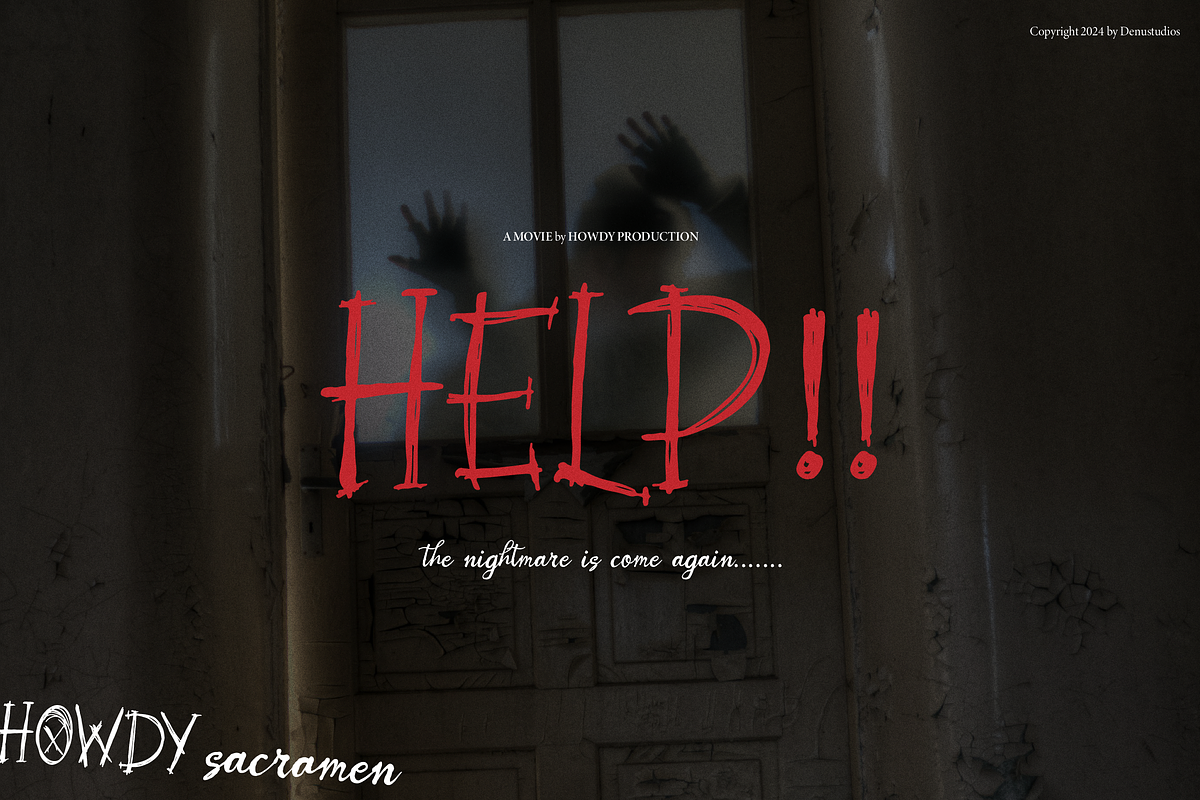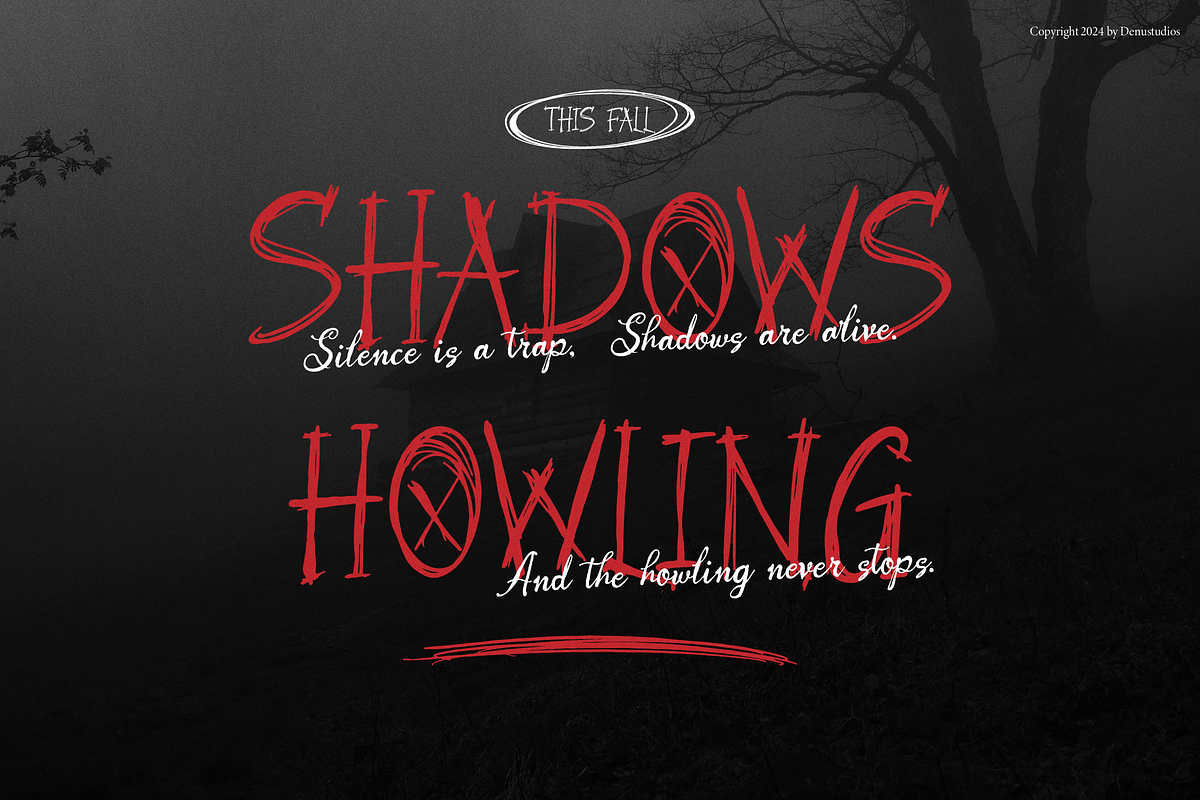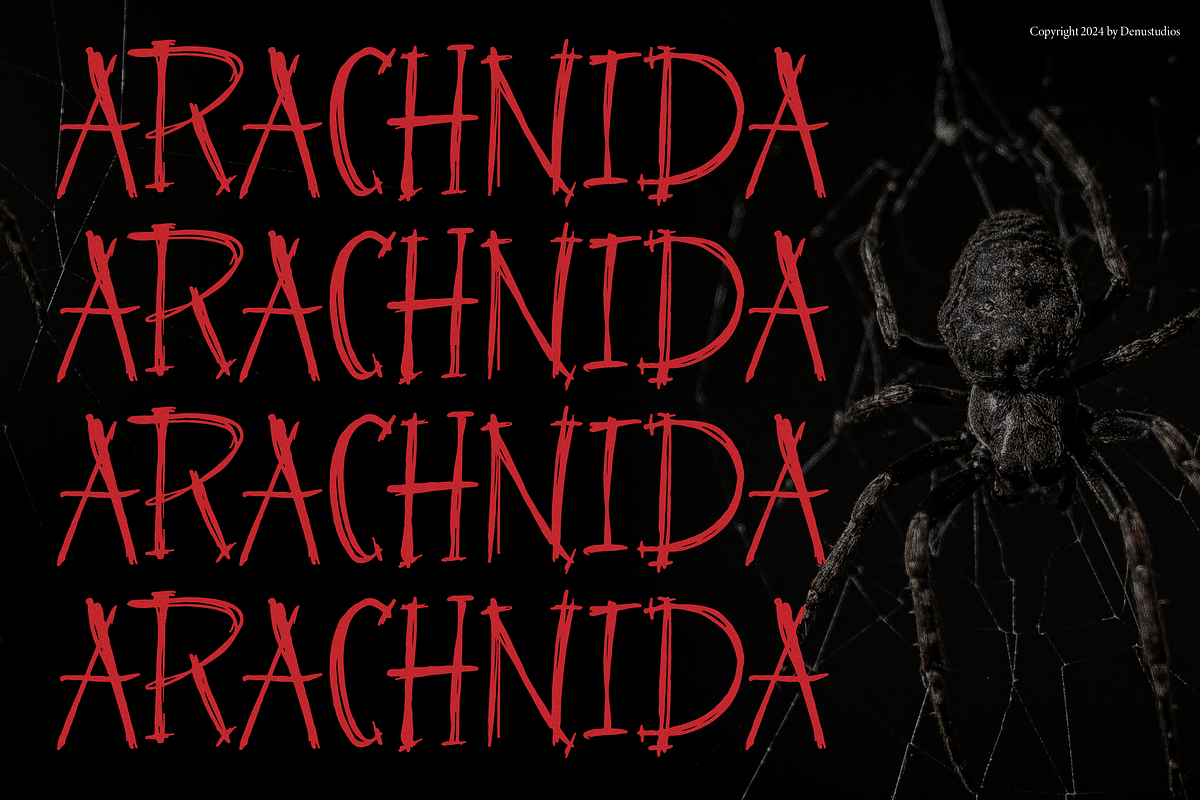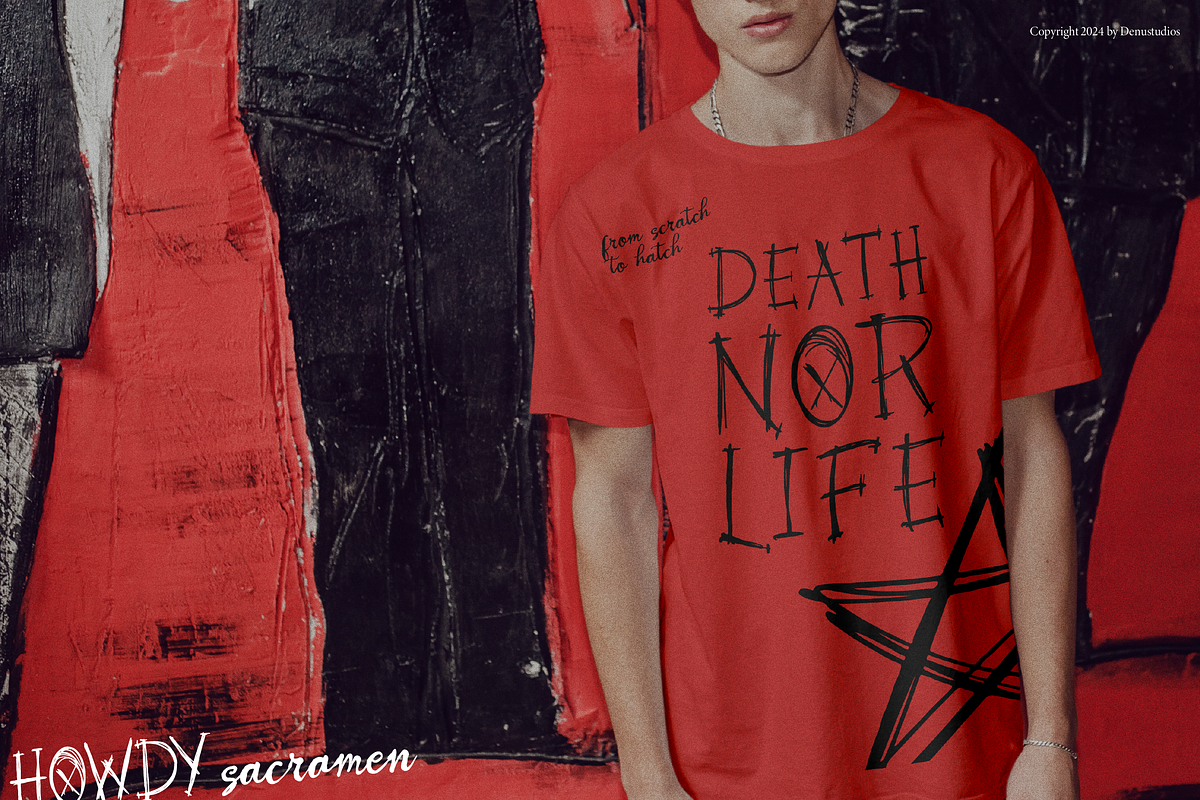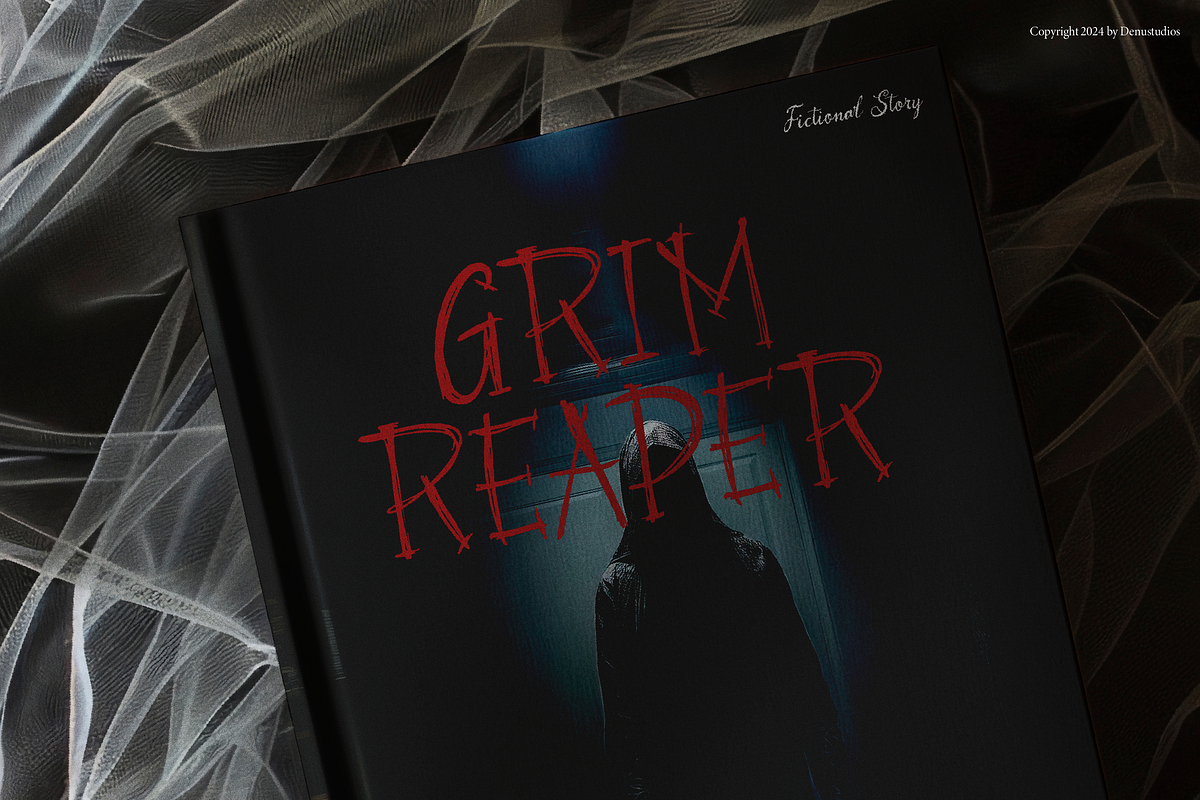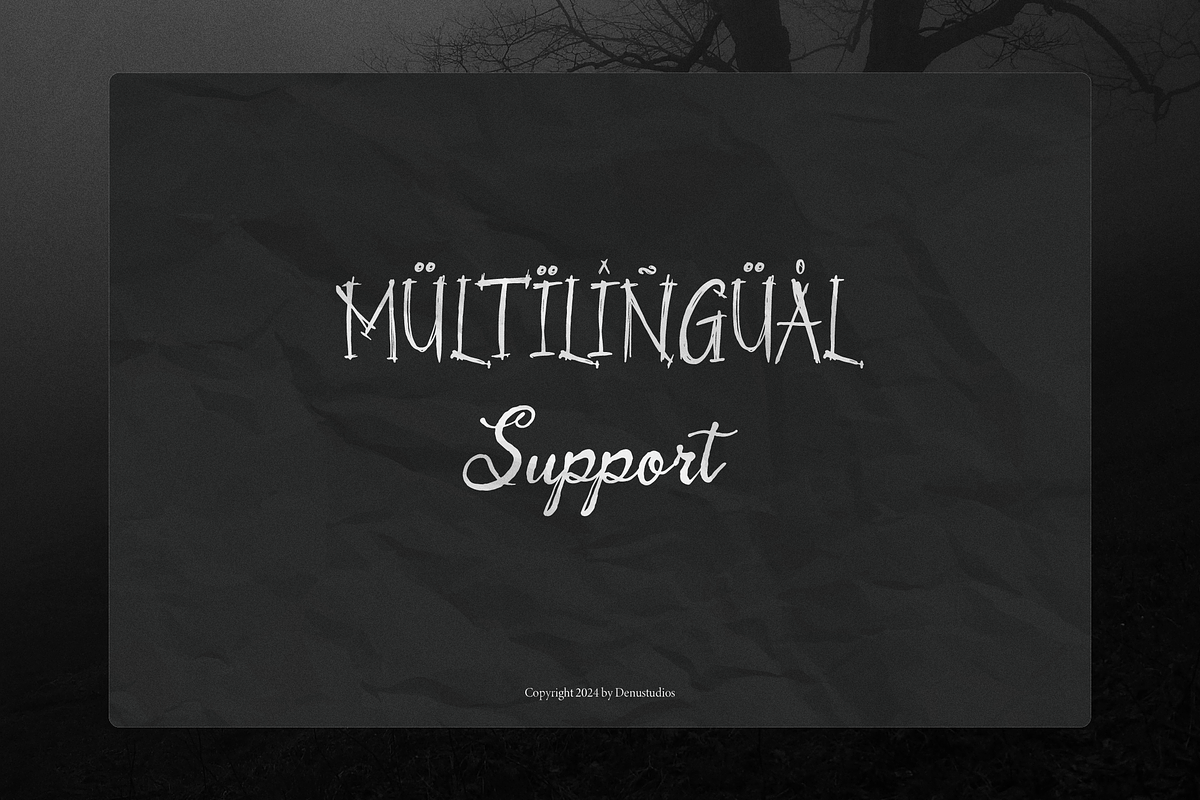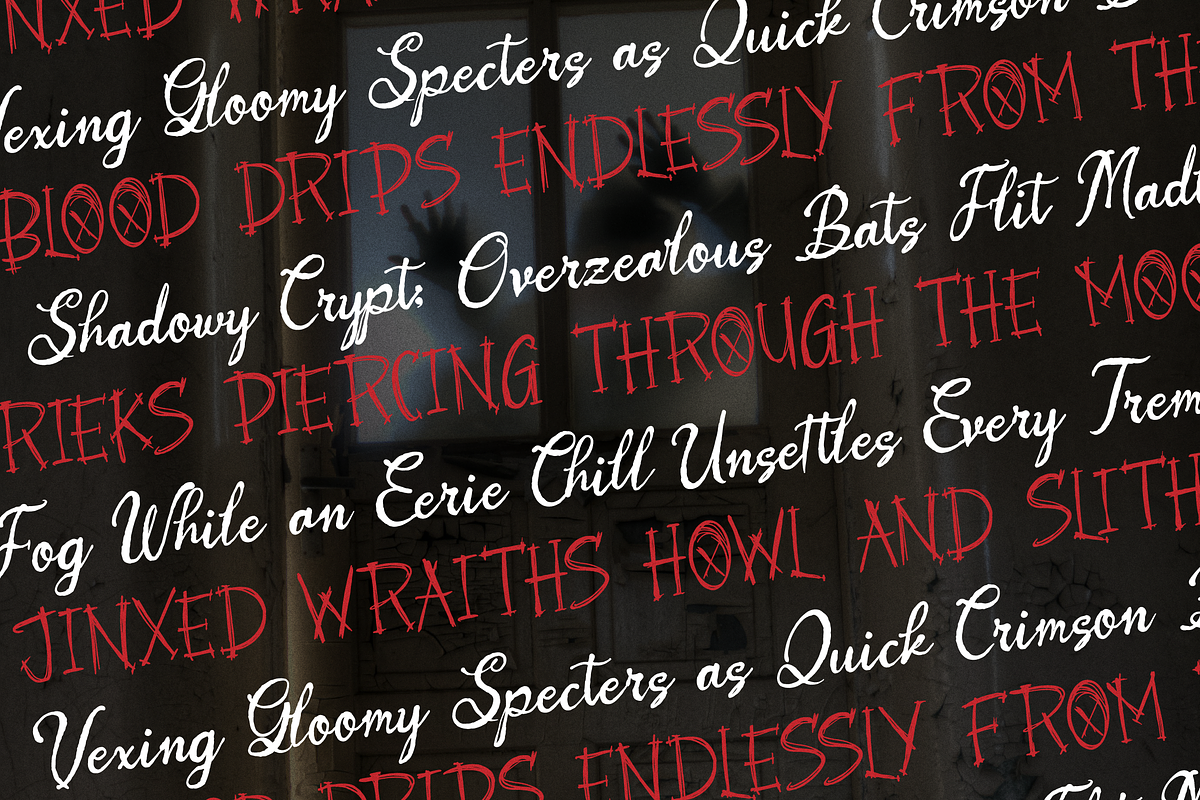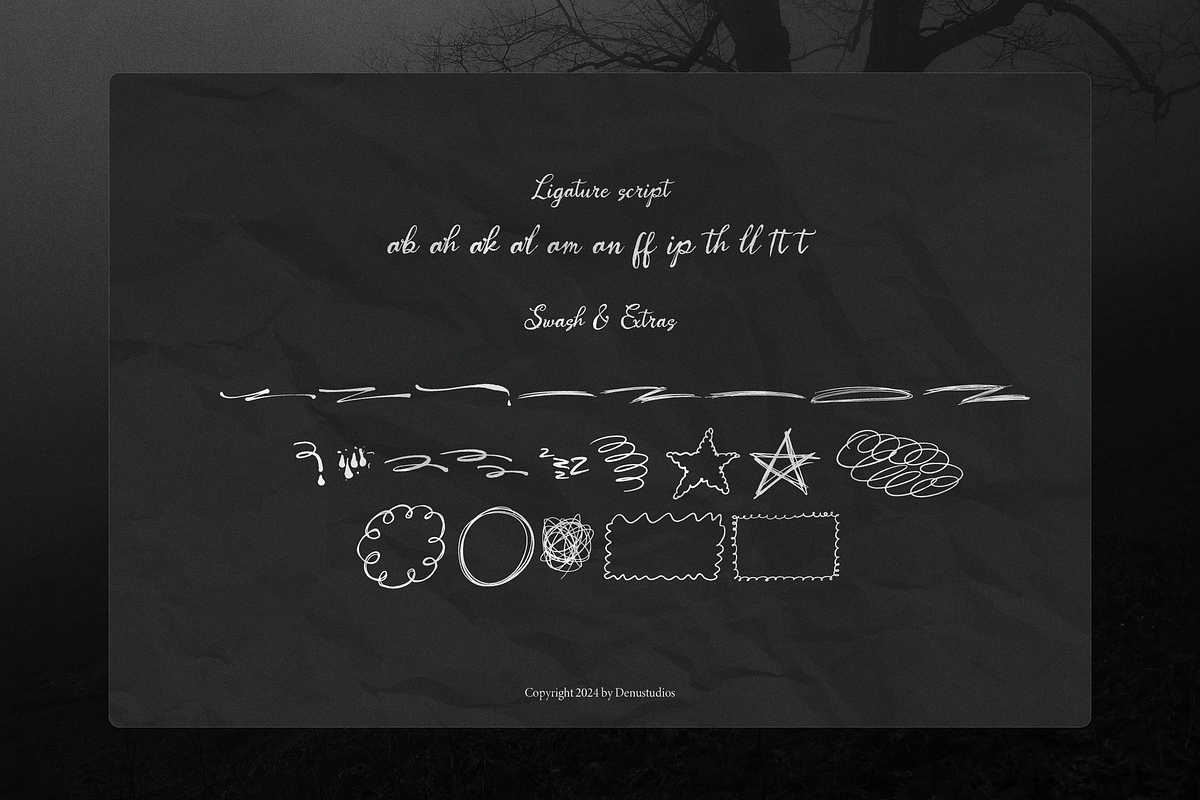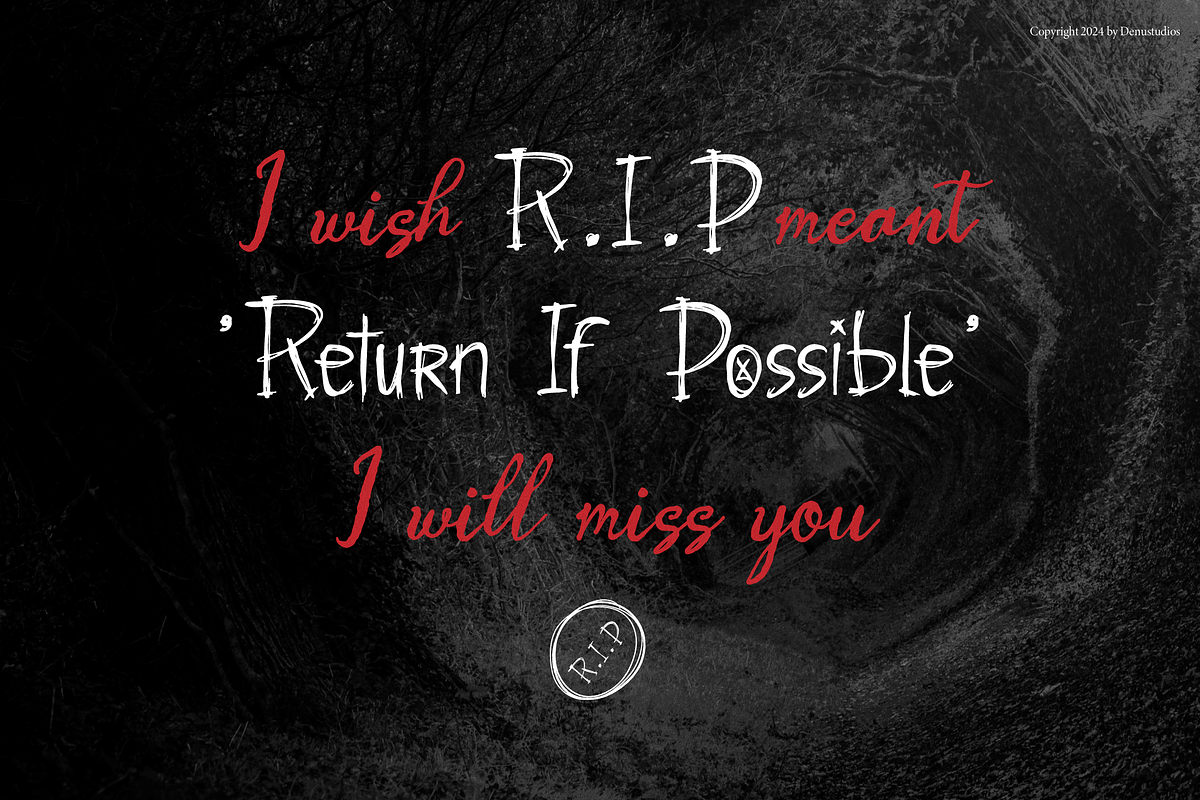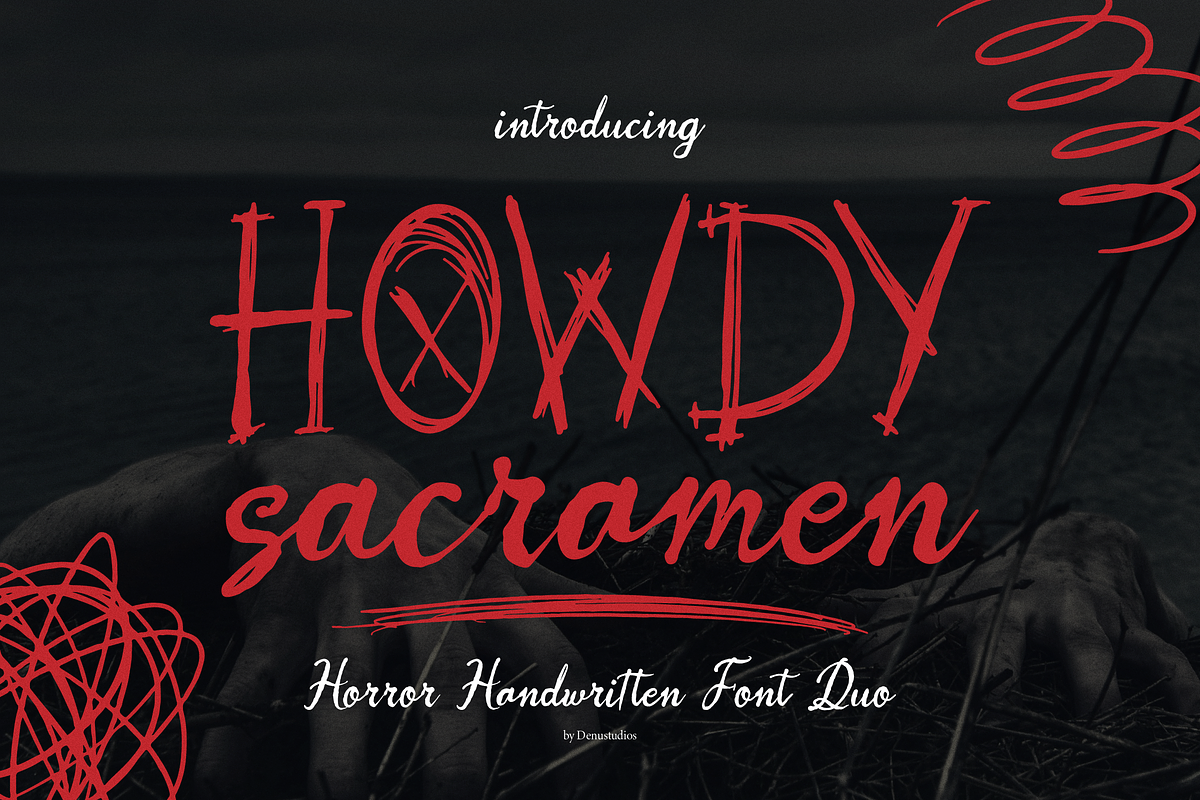
Howdy Sacramen | Horror Handwritten
Howdy Sacramen | Horror Handwritten Font Duo, from Denustudios, suitable for any projects such as: logos, branding projects, homeware designs, product packaging, mugs, quotes, posters, shopping bags, t-shirts, book covers, name card, invitation cards, greeting cards, label, photography, watermark, special events, and all your other lovely projects that need a Horror Handwritten Font Duo taste.